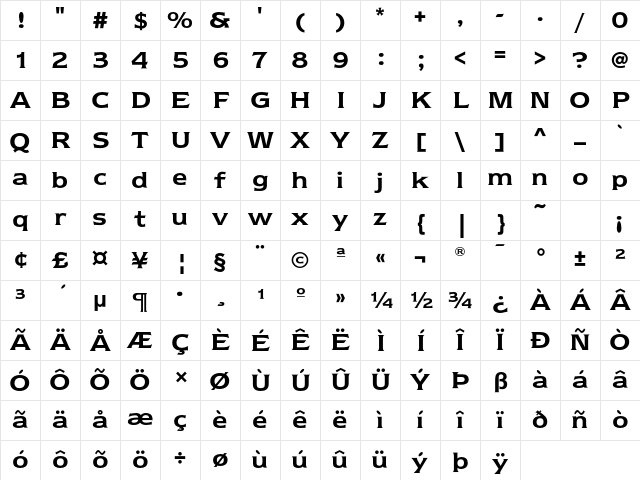
NewtextEF Demi
Style: Demi
NewtextEF Family
NewtextEF Demi
Complete NewtextEF Demi glyph index. Displaying only characters natively supported by NewtextEF Demi font.
Design Context for NewtextEF
NewtextEF is a composed and adaptable typeface that performs quietly and consistently across a wide range of design contexts.